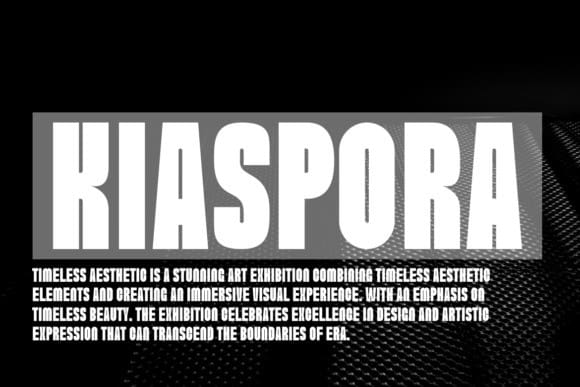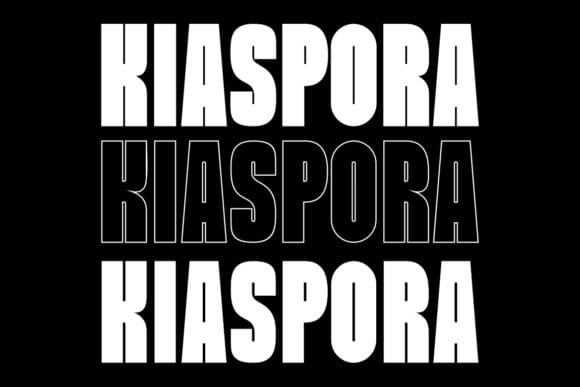
Kiaspora Font
Kiaspora Font is a bold and unique modern display font that is perfect for professional and product branding needs. This font is suitable for any branding project such as quotes, logos, blog headers, posters, ribbons, letters, invitations, stationery, etc… Designed to be versatile and flexible so it can be used on a variety of projects and mediums. extraordinary in a variety of contexts.